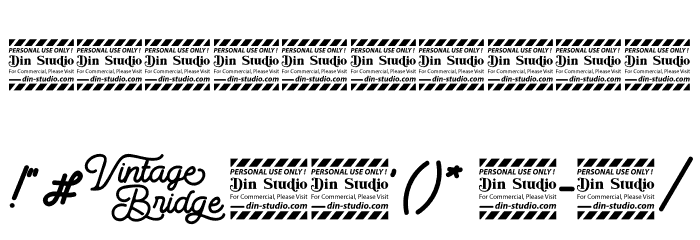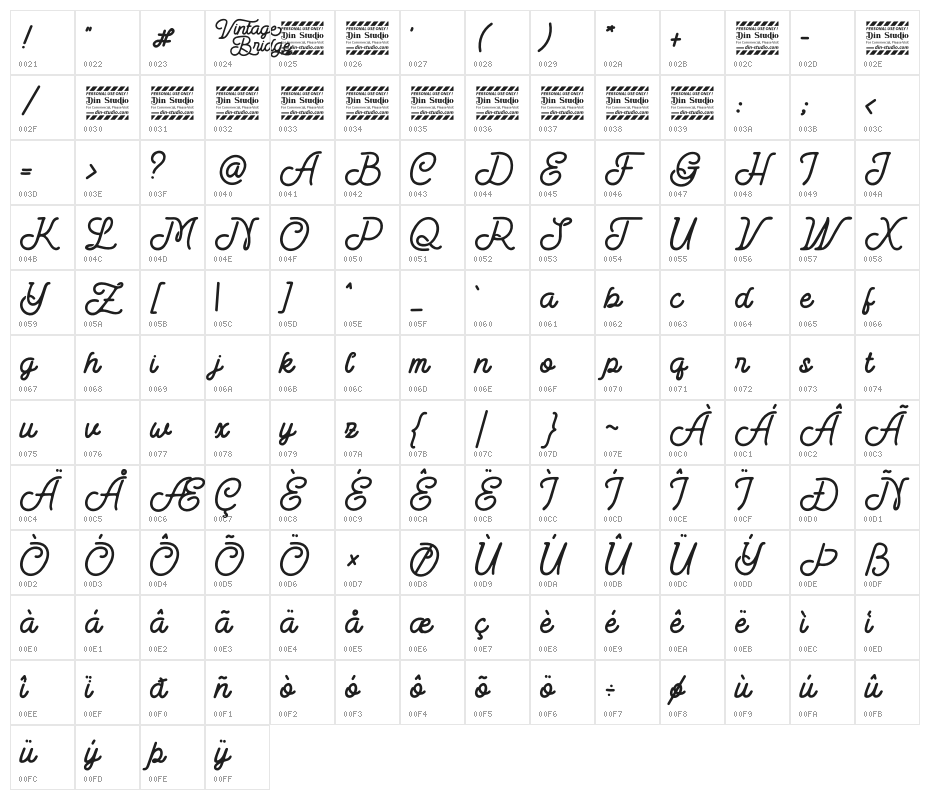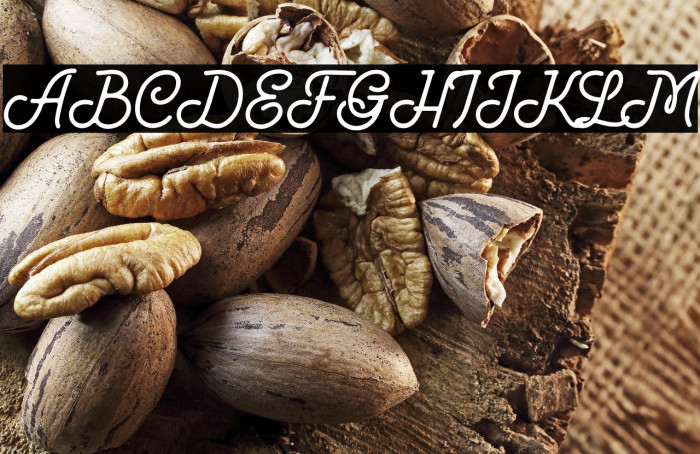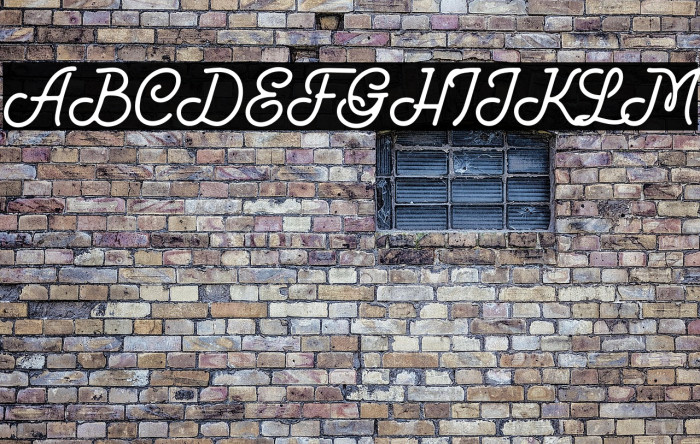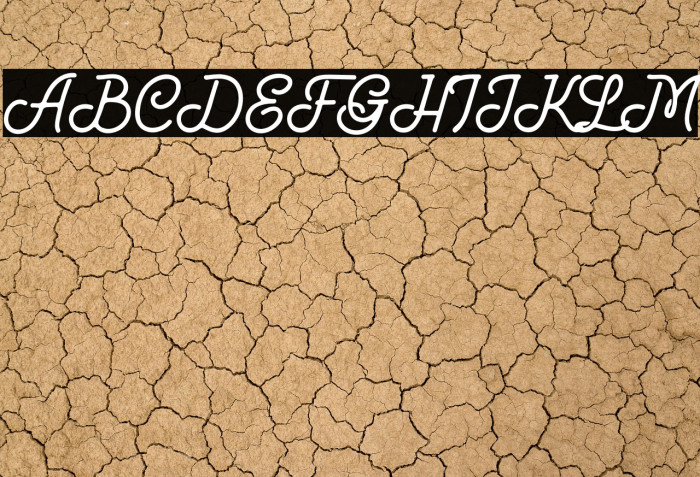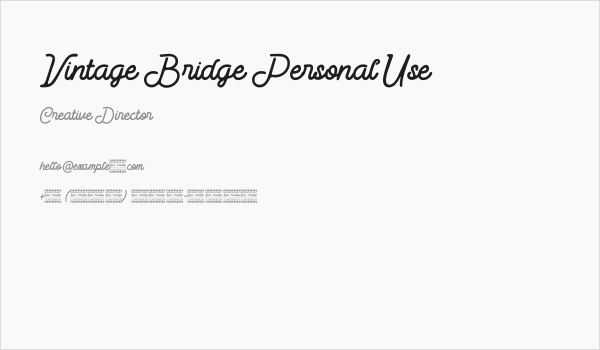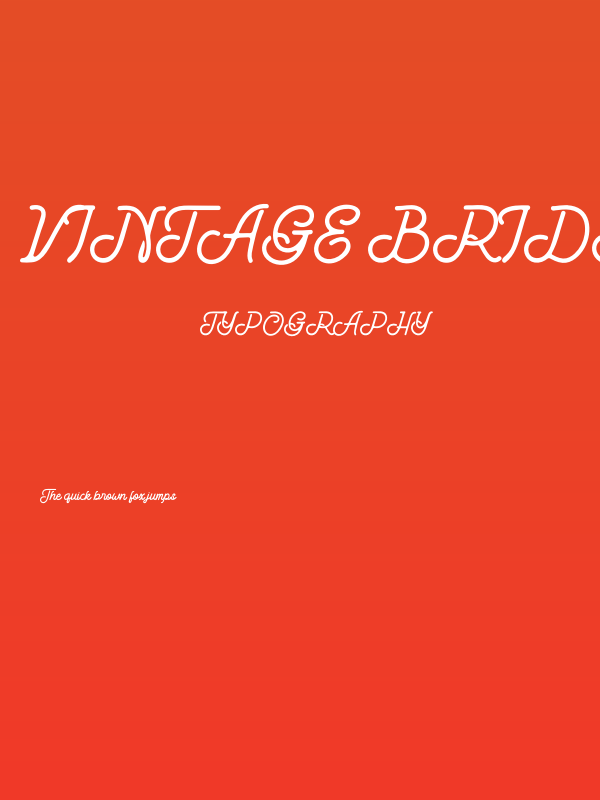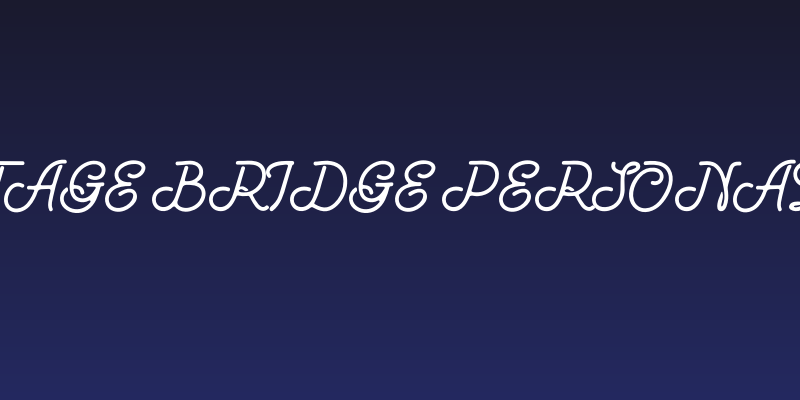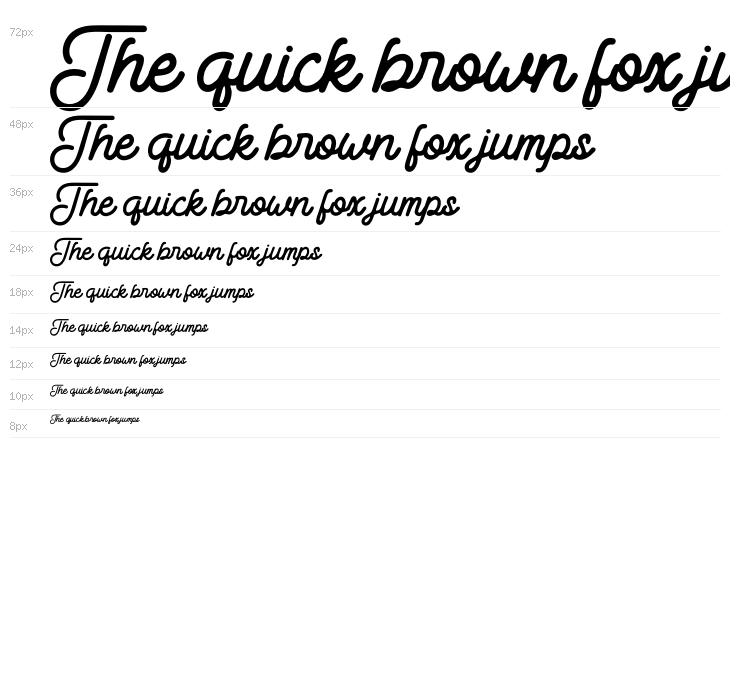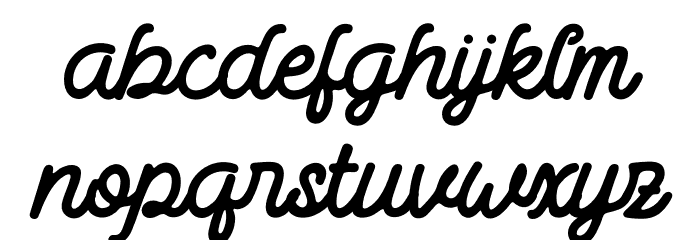
Vintage Bridge Personal Use Font
Vintage Bridge Personal Use Description
This font features a charming, cursive style with a vintage flair. The uppercase letters are elegantly looped and slightly slanted, giving a sense of fluidity and grace. The lowercase characters maintain a consistent flow, with smooth connections between each letter, enhancing readability while preserving a handwritten feel. The numbers and special characters are designed to match the overall aesthetic, providing a cohesive look. This font is perfect for projects that require a touch of nostalgia and elegance.